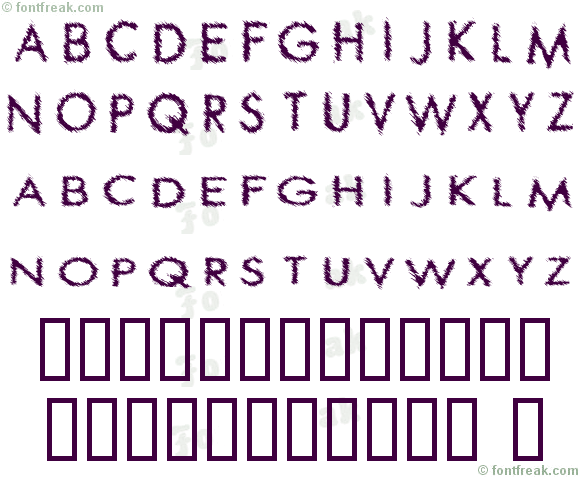
Spat Crumb
The Spat Crumb font, designed by Astigmatic One Eye in 1997, is a unique display typeface that exudes a playful and organic aesthetic. This freeware font features a handwritten style with a distinct roughness, characterized by its irregular stroke weight and uneven edges. The letters have a charming, hand-drawn quality that evokes a sense of familiarity and warmth, making it a standout choice for various creative projects. The spacing between characters is thoughtfully designed to maintain readability while enhancing the overall whimsical appearance of the font.
Spat Crumb is particularly well-suited for use cases that benefit from its quirky character and informal vibe. It shines in applications such as children's book covers, playful branding for cafes or bakeries, artistic event posters, and vibrant social media graphics. Its distinctive style can add a unique touch to wedding invitations, especially for couples looking to convey a fun and relaxed atmosphere. The font resonates with graphic designers, small business owners, and content creators who want to infuse their projects with personality and charm.
What sets the Spat Crumb font apart is its ability to blend creativity with approachability. Unlike more traditional typefaces, Spat Crumb invites viewers to engage with the content in a lighthearted manner. Its distinctive features capture attention while remaining versatile enough for various applications. For those seeking to make a statement with their typography, Spat Crumb font free download offers a perfect opportunity to explore this delightful typeface. Its unique flair and artistic essence ensure it will leave a lasting impression in any design project.